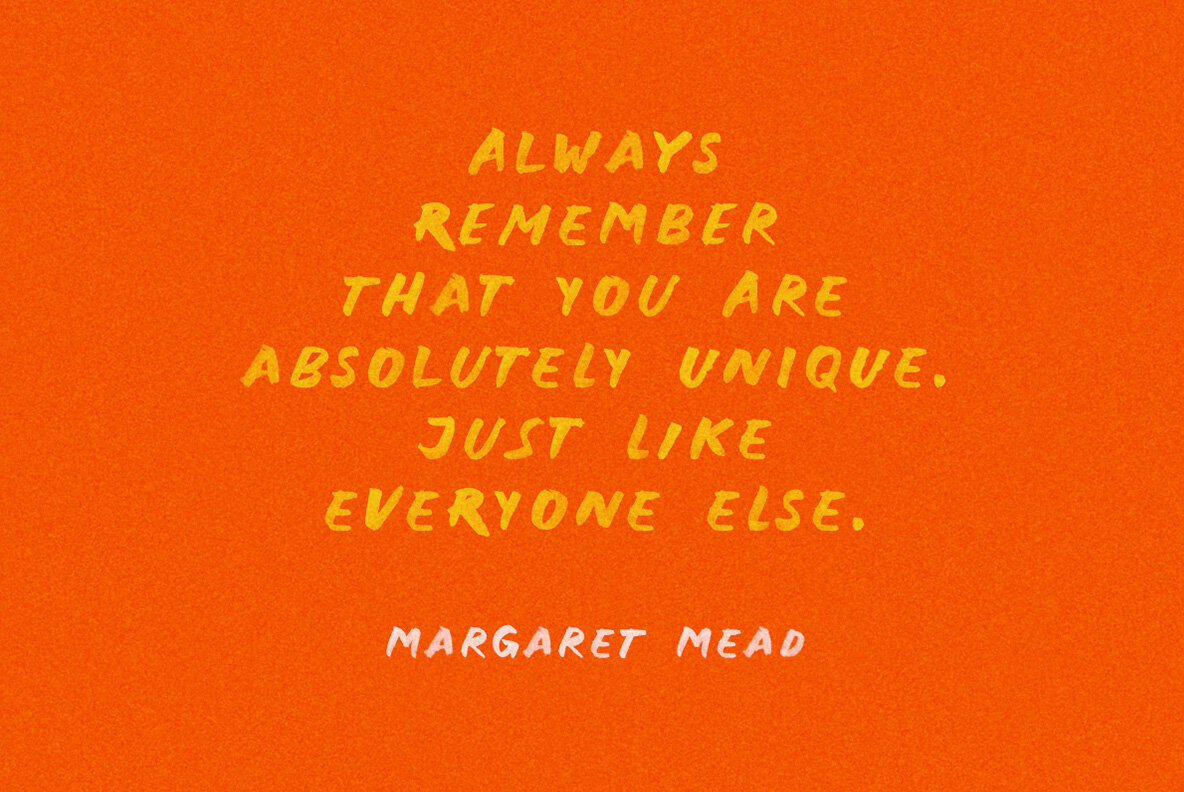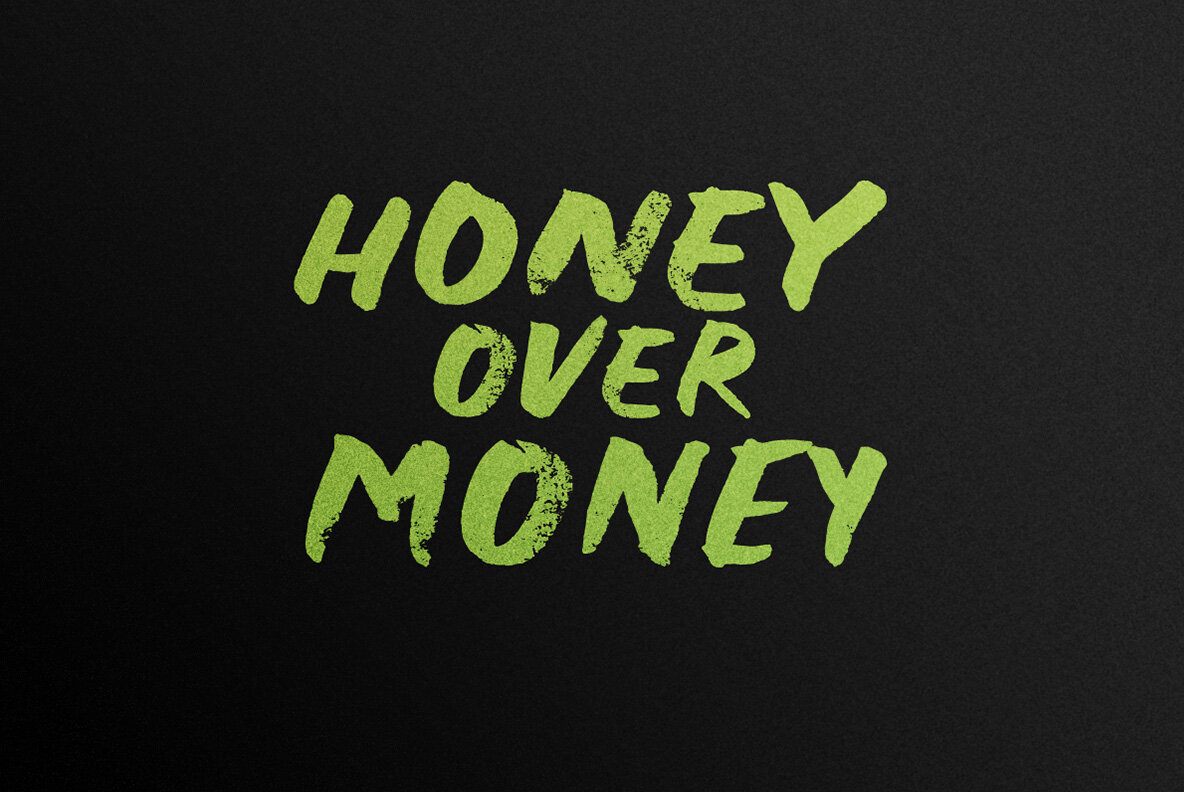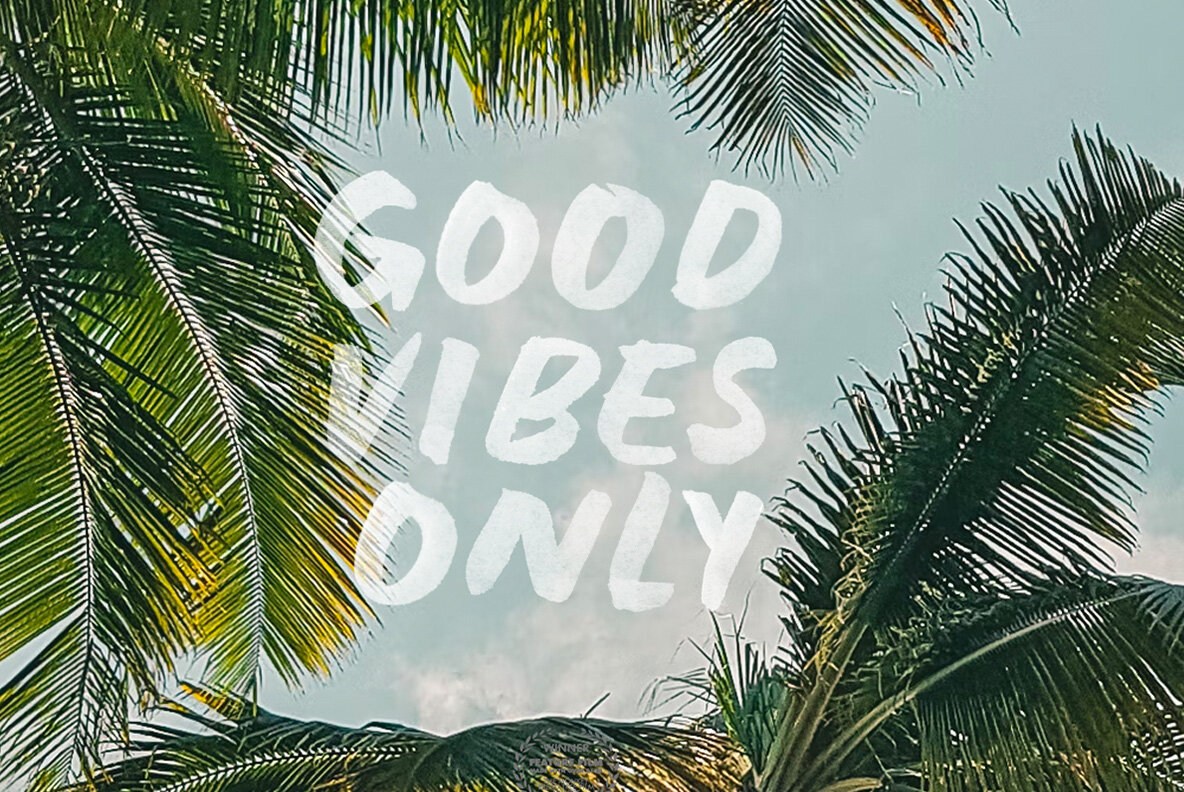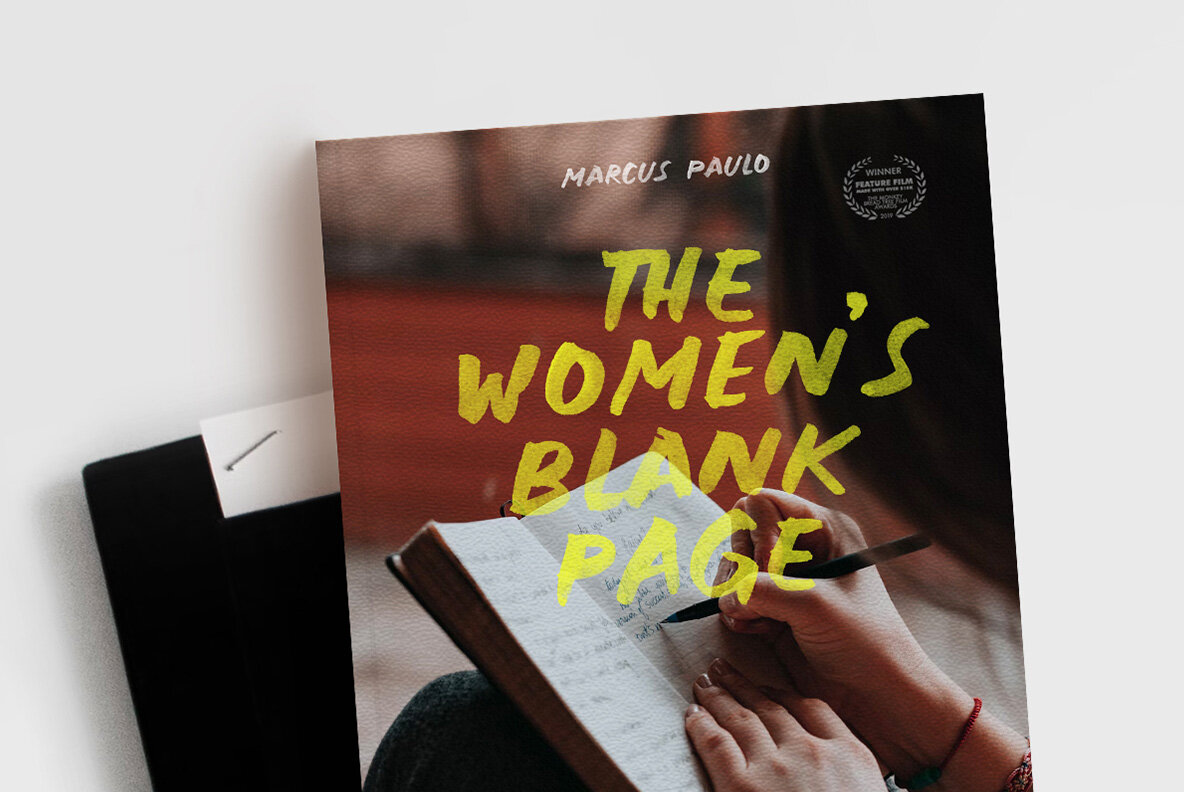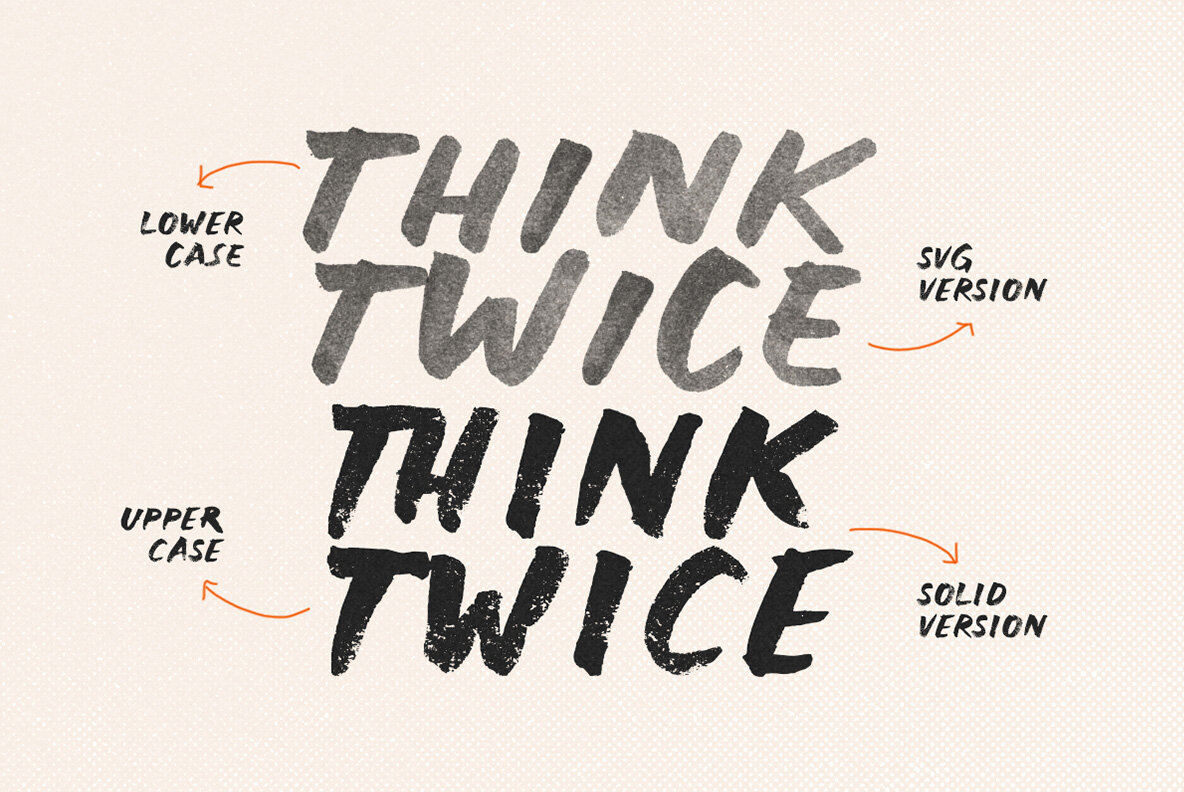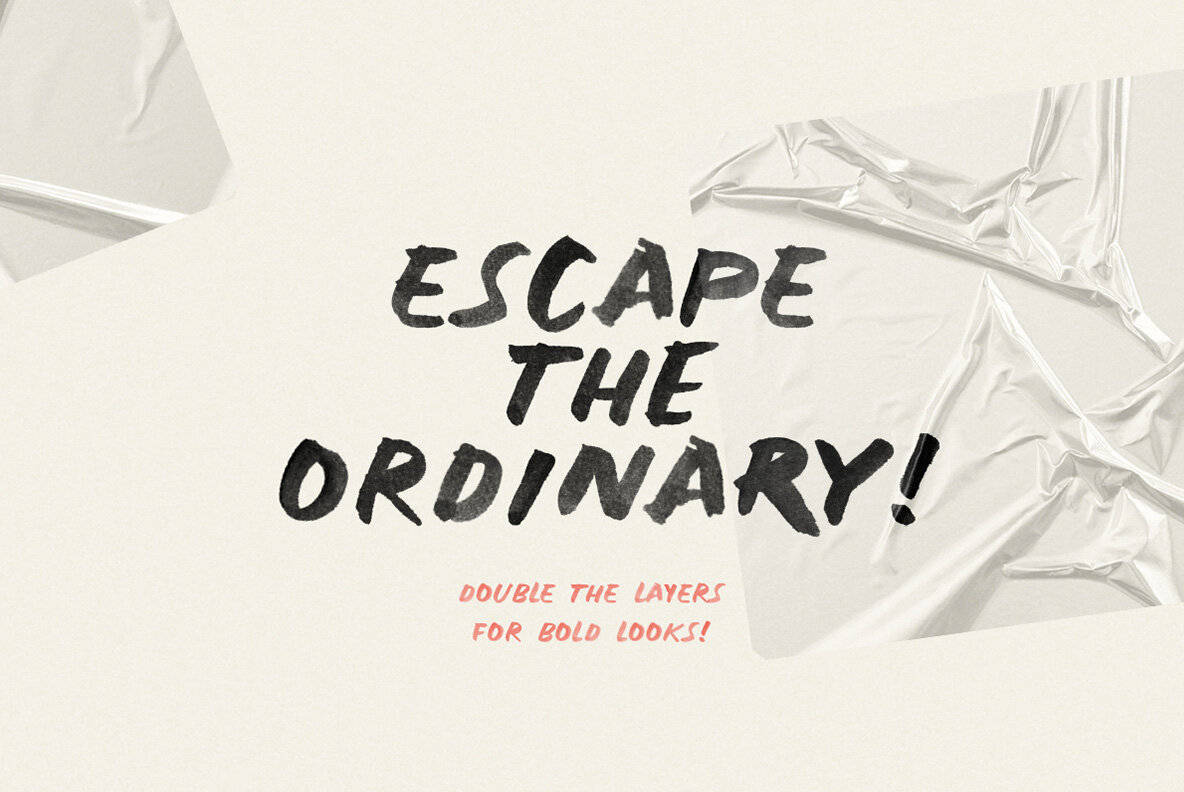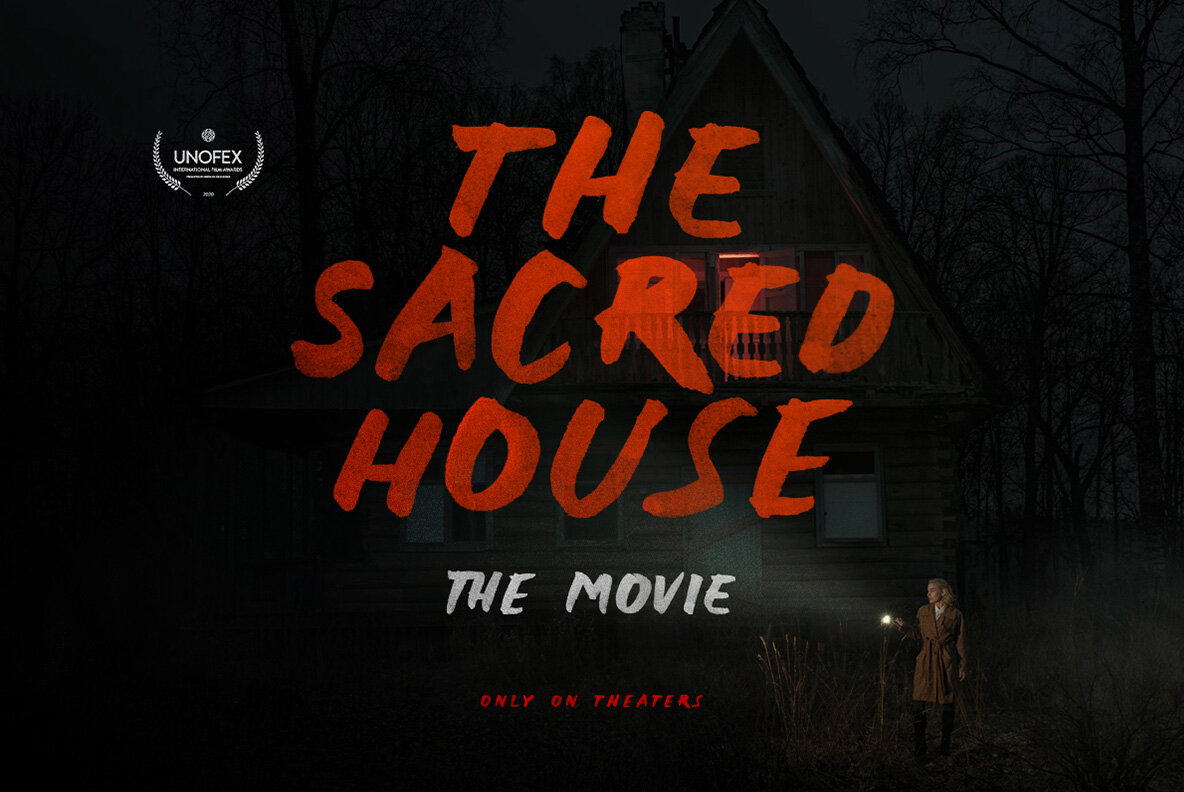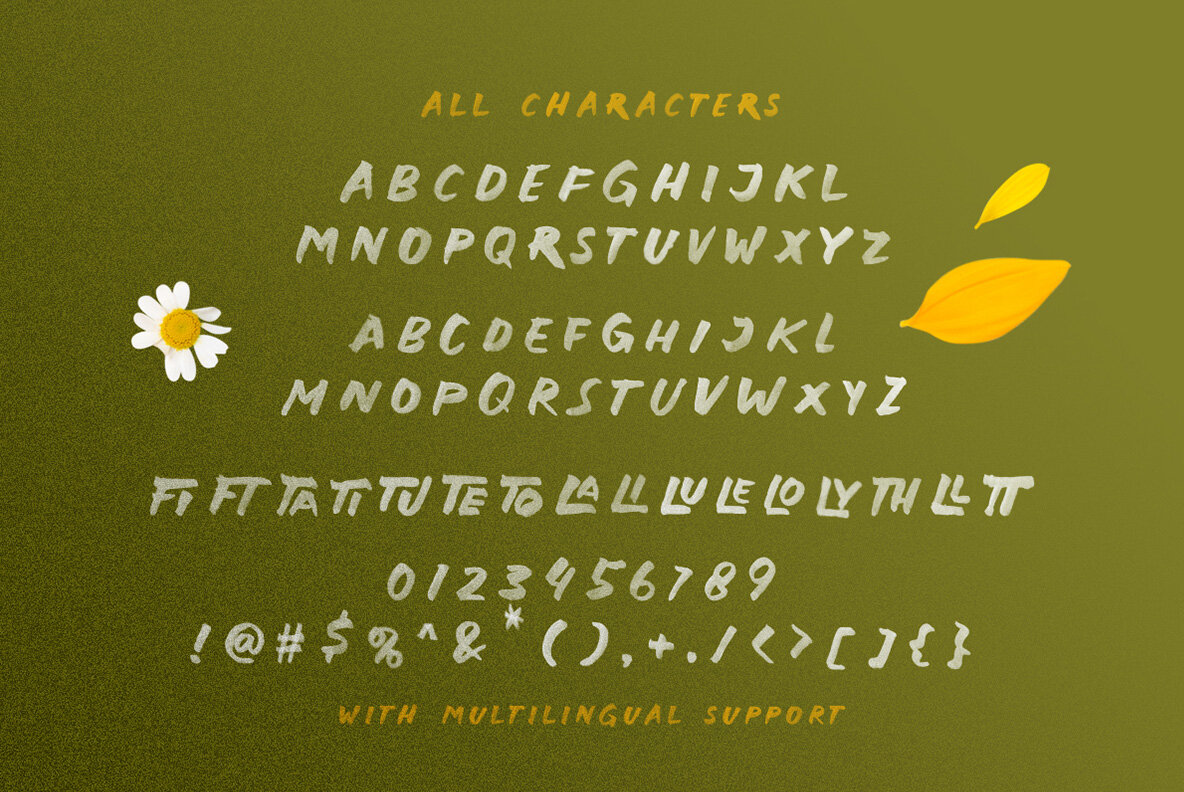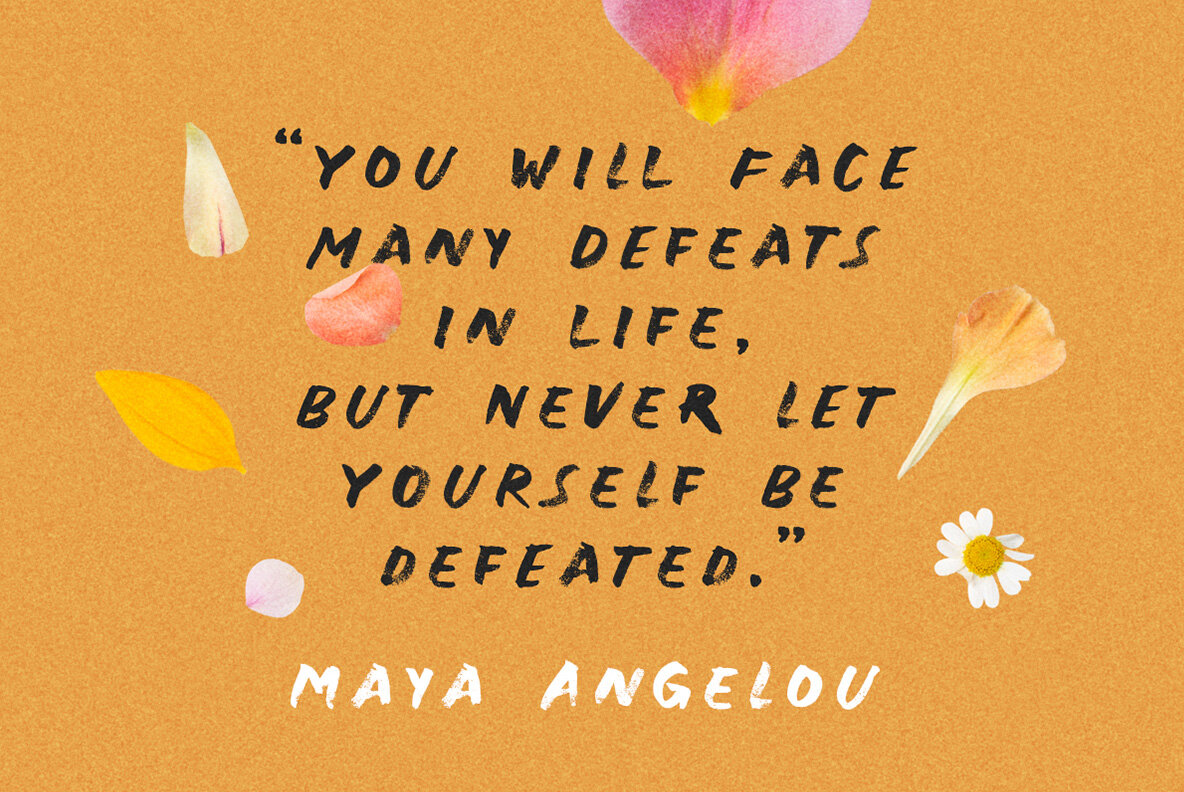
Natural Rough Font
Introducing Natural Rough, the perfect font for adding a touch of organic charm to your designs. This SVG Handwritten font boasts a beautifully natural texture, adding a unique and rustic feel to your typography. And with its included vector version, you'll have even more flexibility to create stunning visuals. This font perfectly made to be applied especially in logo, and the other various formal forms such as invitations, labels, logos, magazines, books, greeting / wedding cards, packaging, fashion, make up, stationery, novels, labels or any type of advertising purpose.
- Numbers and Punctuation
- Alternates & Ligatures